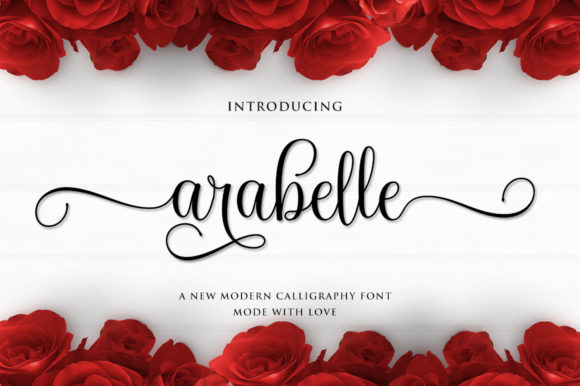
The Sweet Charm of Arabelle Font: A Designer’s Delight
I’ll never forget the time I was working on a wedding invitation project, and my client asked for a font that was “romantic, elegant, and playful.” I scoured the internet, trying out font after font, but nothing seemed to fit the bill. That was until I stumbled upon Arabelle Font. ✨ This sweet, romantic calligraphy typeface has been a game-changer for my designs, and I’m excited to share its charm with you.
An Honest Review of Arabelle Font
- ✨ Elegant yet casual: Arabelle Font strikes the perfect balance between elegance and casualness, making it suitable for a wide range of design projects.
- ✅ Versatile: From logos to wedding invitations, headers to t-shirts, Arabelle Font can be used for various purposes.
- 💃 Dancing characters: The way the characters dance along the baseline adds a touch of whimsy and playfulness to any design.
- 📚 OpenType features: Arabelle Font comes with a range of OpenType features, including glyphs and stylistic alternates, which allow for endless creative possibilities.
While Arabelle Font is a stunning typeface, there are a few things to keep in mind: ⚠️
- 🤔 Limited use in body text: Due to its script nature, Arabelle Font may not be the best choice for large blocks of body text.
- ⚠️ Kerning issues: As with any script font, kerning can be a bit tricky, especially when using it in combination with other fonts.
The Backstory of Arabelle Font
Arabelle Font was designed with love and care by a talented type designer who wanted to create a font that would bring a touch of romance and elegance to any design. The story goes that the designer was inspired by the beautiful calligraphy of the past and wanted to create a font that would be both modern and classic. 💌
Q: What is Arabelle Font best used for?
A: Arabelle Font is best used for designs that require a touch of elegance and romance, such as wedding invitations, logos, and headers.
Q: Is Arabelle Font suitable for body text?
A: While Arabelle Font is a beautiful typeface, it’s not recommended for large blocks of body text due to its script nature.